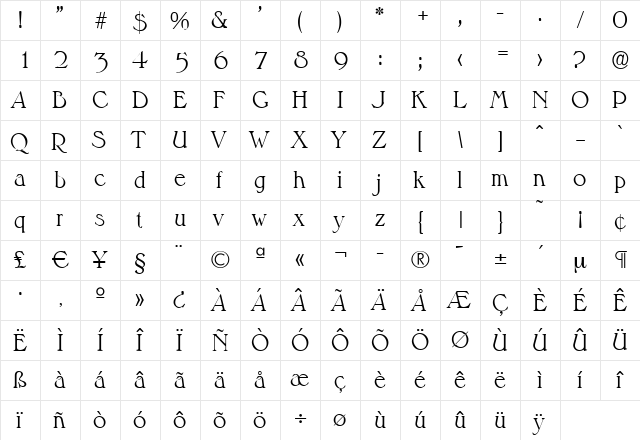
HenryBecker-Light Regular
Design Context for HenryBecker-Light Typeface
HenryBecker-Light is a composed and adaptable typeface that performs quietly and consistently across a wide range of design contexts. The delicate stroke weight brings airiness and refinement to layouts.